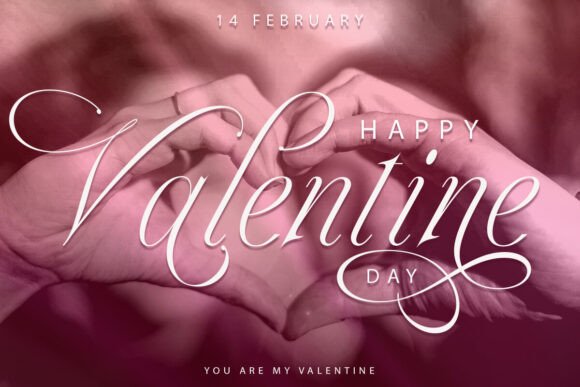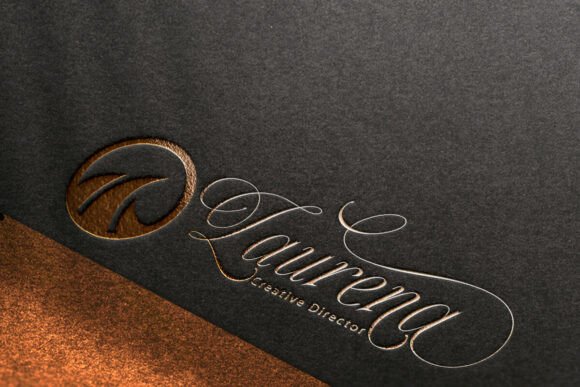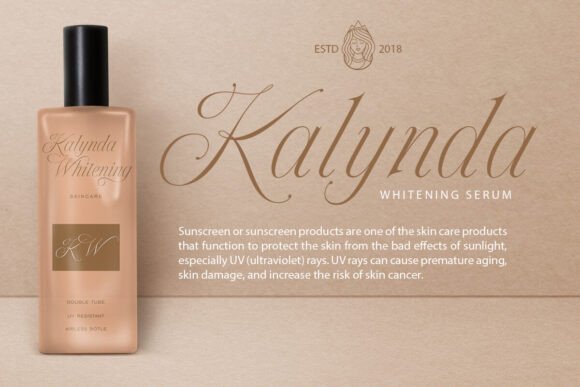
Unlocking Timeless Elegance with Elegantia Font
As a designer, you’ve probably had that moment when a project requires a touch of sophistication and refinement. You browse through fonts, searching for the perfect fit, and suddenly, a beautiful script catches your eye. It’s the Elegantia Font, with its delicate curves and fluid strokes, that elevates your design from ordinary to extraordinary.
With its classic calligraphy and modern flair, the Elegantia Font is the perfect choice for high-end branding, luxurious invitations, and artistic designs. Its ability to balance tradition and contemporary beauty makes it a valuable asset for designers who want to add a touch of class and charisma to their projects.
Elegantia Font Key Features
- Font Family: Elegantia is a premium font family that includes 4 styles: Regular, Italic, Bold, and Bold Italic.
- Unique Characteristics: Elegantia features a unique blend of classical and modern elements, with intricate details and subtle flair, making it perfect for luxury branding and high-end designs.
- Language Support: Elegantia supports a wide range of languages, including Latin, Cyrillic, and Greek alphabets, as well as many languages that use non-Latin scripts.
- Kerning and Ligatures: Elegantia includes advanced kerning and ligature features, ensuring seamless letter spacing and improved readability, even in complex text settings.
Elegantia Font Review
Overall, I think Elegantia Font is a solid choice for anyone looking for a elegant and sophisticated font. Here are some things that work well: ✨
- Highly legible and readable even in smaller sizes
- Beautiful and refined curves that give it a classic look
- Wide range of font weights and styles to choose from
- Looks great on both digital and print media
However, like any font, Elegantia is not perfect. Here are some limitations to consider: ⚠️
- May not be as versatile as some other fonts for more modern designs
- Some users may find it too formal or traditional
- Not ideal for bold or dramatic headings, as it can look a bit too delicate
Overall, I think Elegantia Font is a great choice for designers who want a classic, elegant look. While it may not be the best fit for every project, it’s definitely worth considering for anything that requires a touch of sophistication. With its high legibility and wide range of styles, it’s a solid addition to any designer’s toolkit.
Tips for Getting the Most Out of Elegantia Font
Use Elegantia Font to add a touch of sophistication to your designs. Here are some tips to get the most out of it:
- Pair it with bold, contrasting colors to create a striking visual effect.
- Use it for headings and titles to add a sense of elegance.
Elegantia Font is perfect for:
- Business